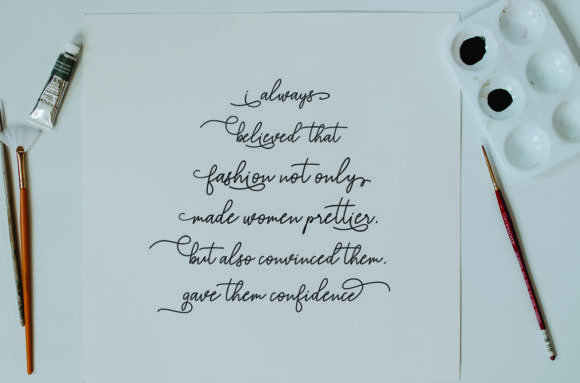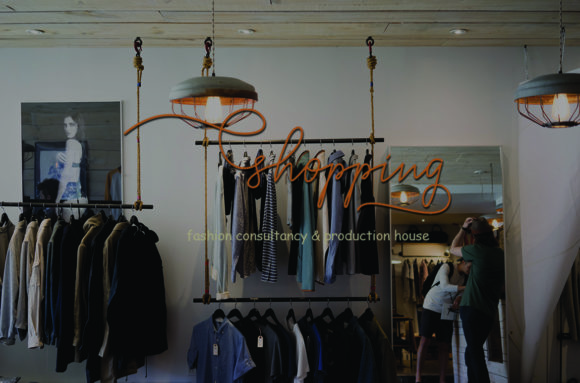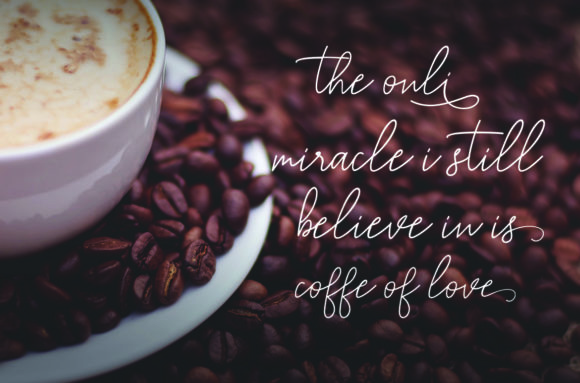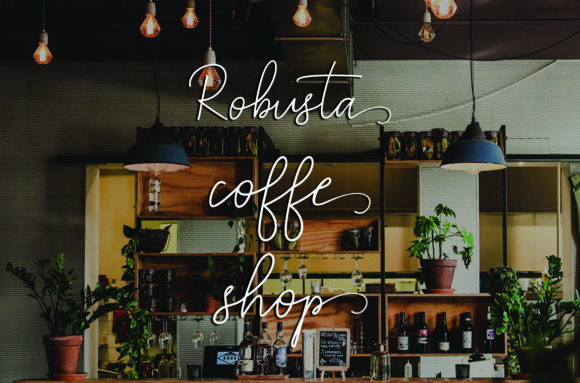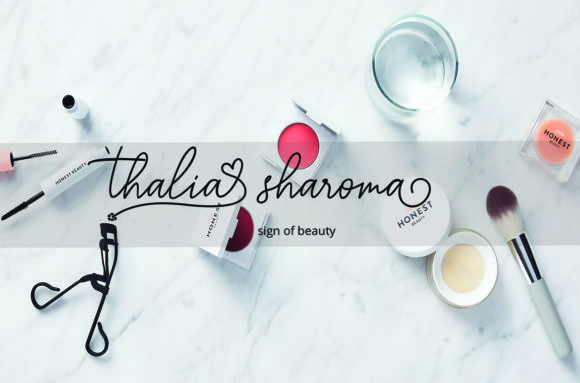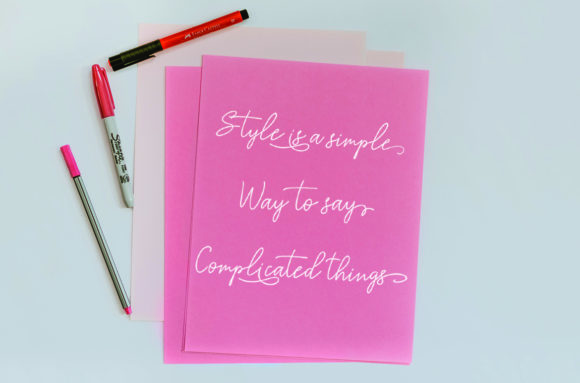
Introducing Barista Font: Elevate Your Designs with Elegance and Friendliness
In the world of typography, a font can make or break a design. For designers and crafters seeking to infuse their projects with a touch of sophistication and approachability, the Barista Font stands out as an exceptional choice. This magical script font is carefully crafted to bring an air of elegance and a friendly feel to any design, making it perfect for those aiming to create original and outstanding works.
The Essence of Barista Font
Barista Font embodies a classic style that is both incredibly elegant and welcoming. Its design is meticulously considered to ensure that it can be used across a wide range of projects, from branding and advertising to packaging and digital content. The font’s classic appeal ensures timelessness, while its friendly undertones make it relatable and engaging.
Key Features of Barista Font
- PUA Encoding: One of the standout features of Barista Font is its PUA (Private Use Area) encoding. This means that users can easily access a variety of glyphs and swashes, allowing for greater creativity and customization in design projects.
- Alternate Glyphs and Ligatures: The font comes equipped with a wealth of special features, including alternate glyphs and ligatures. These elements enable designers to add depth and uniqueness to their work, ensuring that each project stands out.
- Elegant and Friendly: The dual nature of Barista Font, being both elegant and friendly, makes it versatile for use in various contexts. Whether you’re designing for luxury brands or more casual, approachable entities, this font adapts seamlessly.
Applications of Barista Font
The versatility of Barista Font makes it suitable for a myriad of applications. Designers can use it for:
- Branding and Logotypes: Create memorable and impactful brand identities with the font’s distinctive elegance and charm.
- Packaging Design: Stand out on store shelves with packaging that combines classic sophistication and a friendly approach.
- Digital Content: Enhance websites, blogs, and social media graphics with a typography that engages and delights audiences.
- Stationery and Invitations: Add a touch of luxury and warmth to wedding invitations, business cards, and letterheads.
Tips for Using Barista Font Effectively
To maximize the impact of Barista Font in your designs, consider the following tips:
- Experiment with Swashes and Glyphs: Take full advantage of the font’s PUA encoding by exploring the range of swashes and glyphs available. This can add a unique touch to your designs.
- Mix and Match: Don’t be afraid to combine Barista Font with other typefaces to create visual interest. Its friendly and elegant nature makes it a great pairing with a variety of fonts.
- Adjust Weight and Size: Play with the font’s weight and size to ensure optimal readability and aesthetic appeal in your designs.
Barista Font offers designers and crafters a unique tool to elevate their projects with a blend of elegance and friendliness. Its classic style, coupled with modern features like PUA encoding, alternate glyphs, and ligatures, makes it an invaluable asset for anyone looking to create distinctive and engaging designs. Whether you’re working on branding, digital content, or any other project, Barista Font is sure to inspire and enhance your creative endeavors.